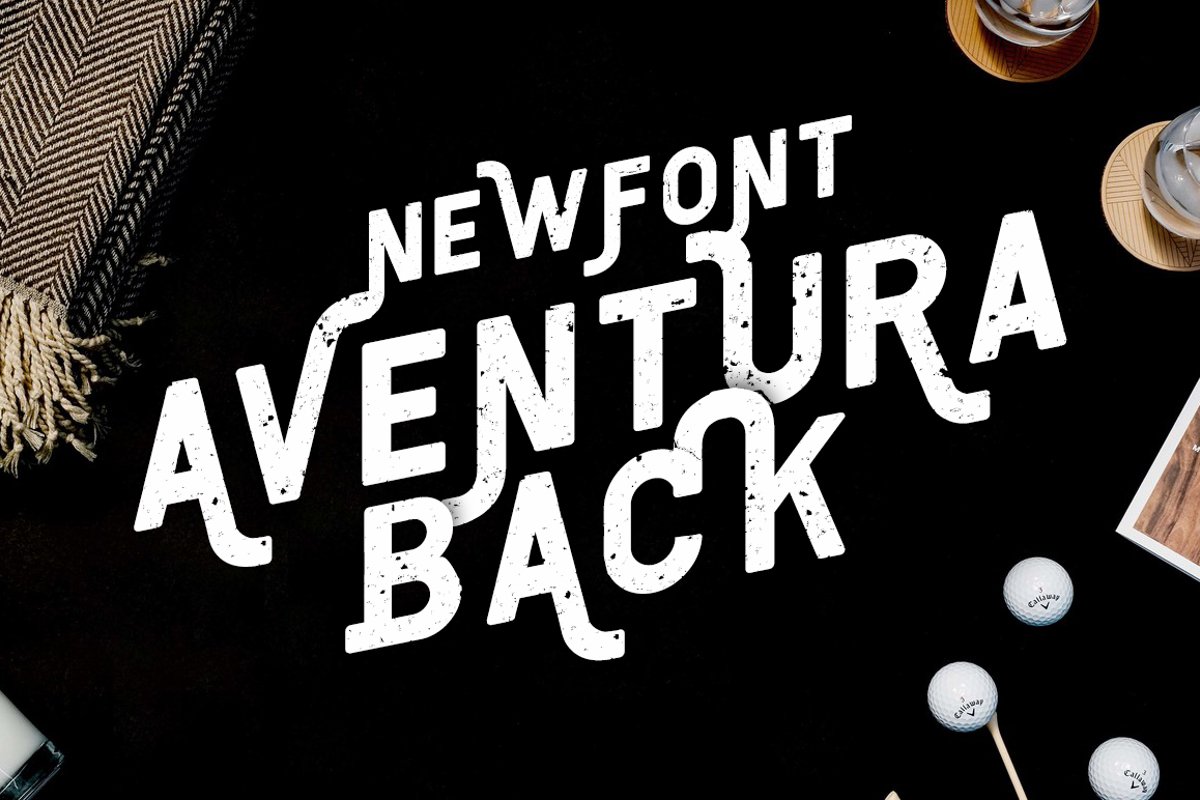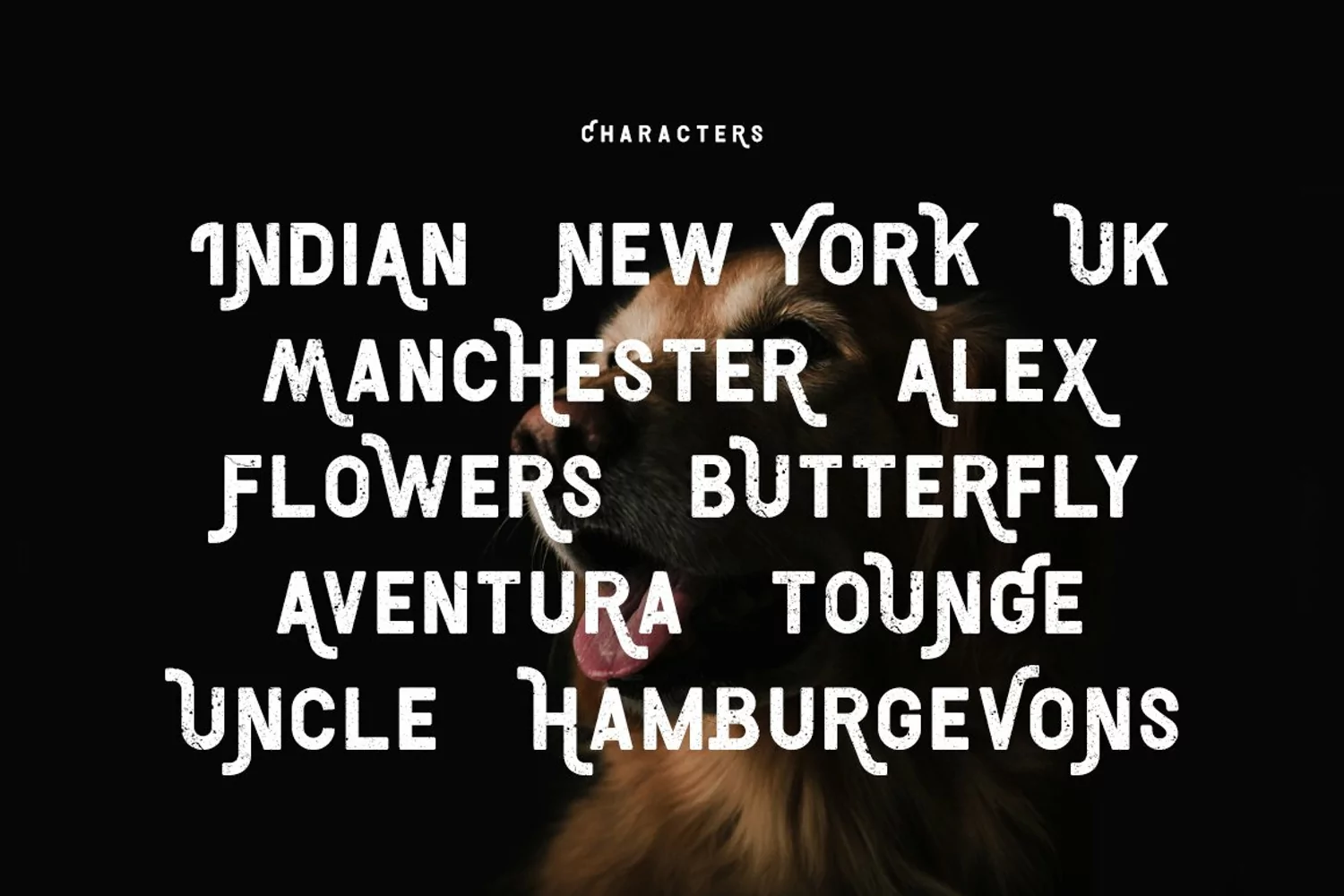
AVENTURA - A vintage sans serif type set with a simply beautiful line.Inspired by a nature and which adds more personality to your work. In the download you get 2 style fonts. A regular face and Rough style which look great in either all caps or lowercase. Combining all these styles can generate many different typographic layouts for packing, book covers or just quotes to post to your social media.